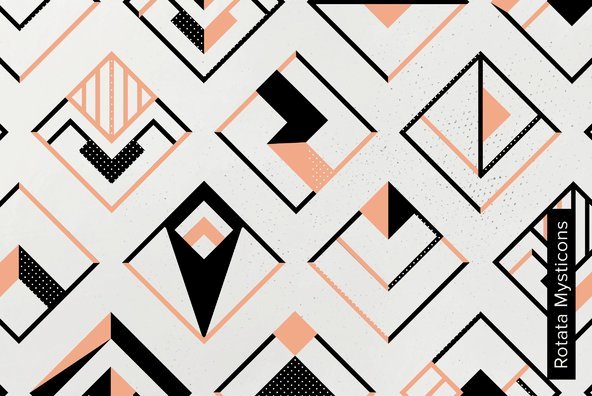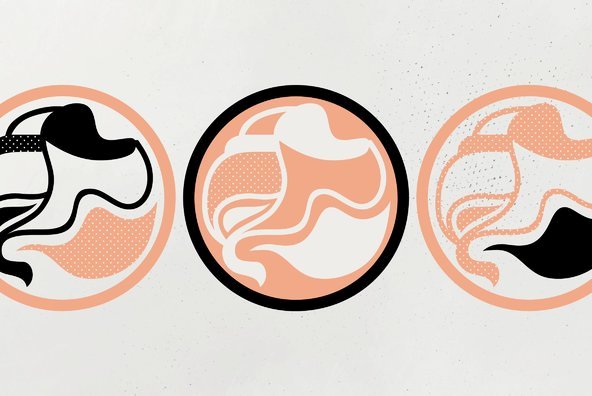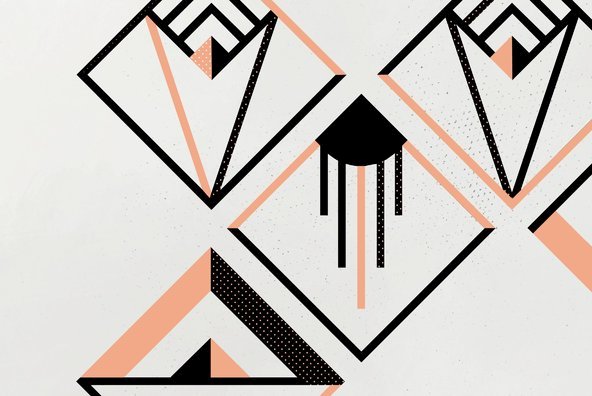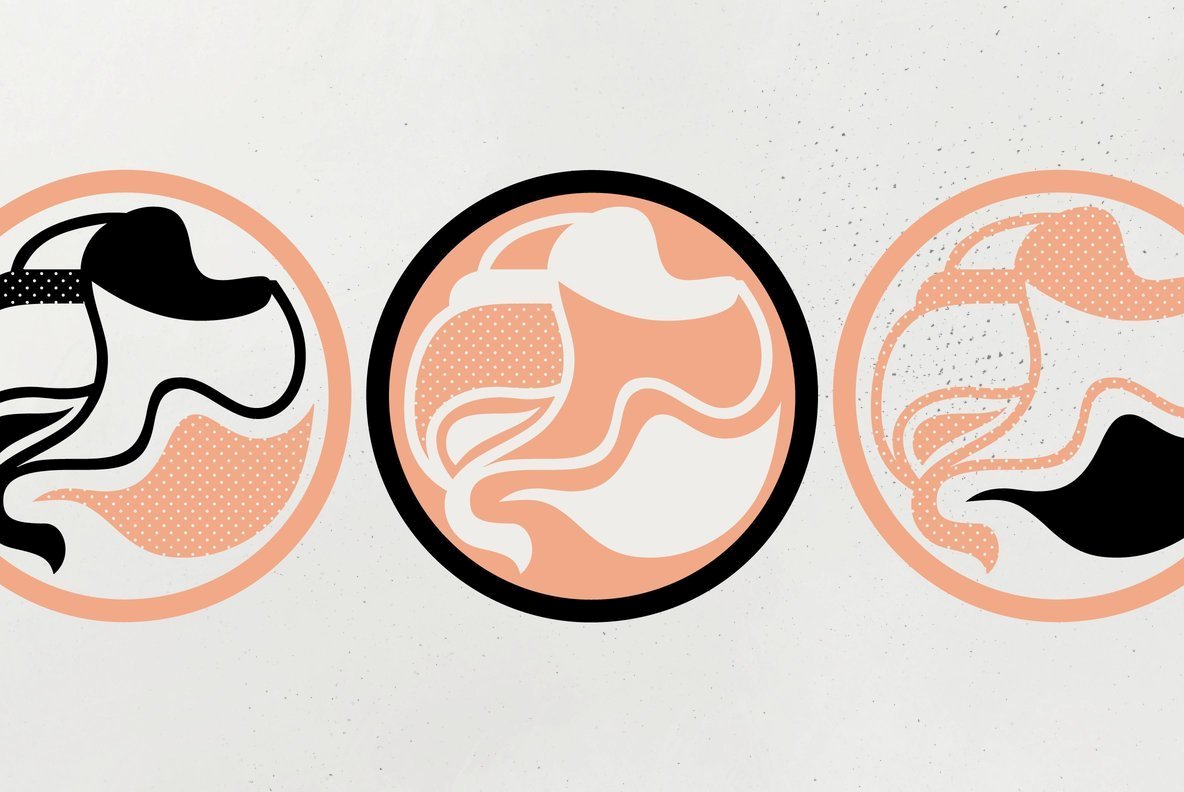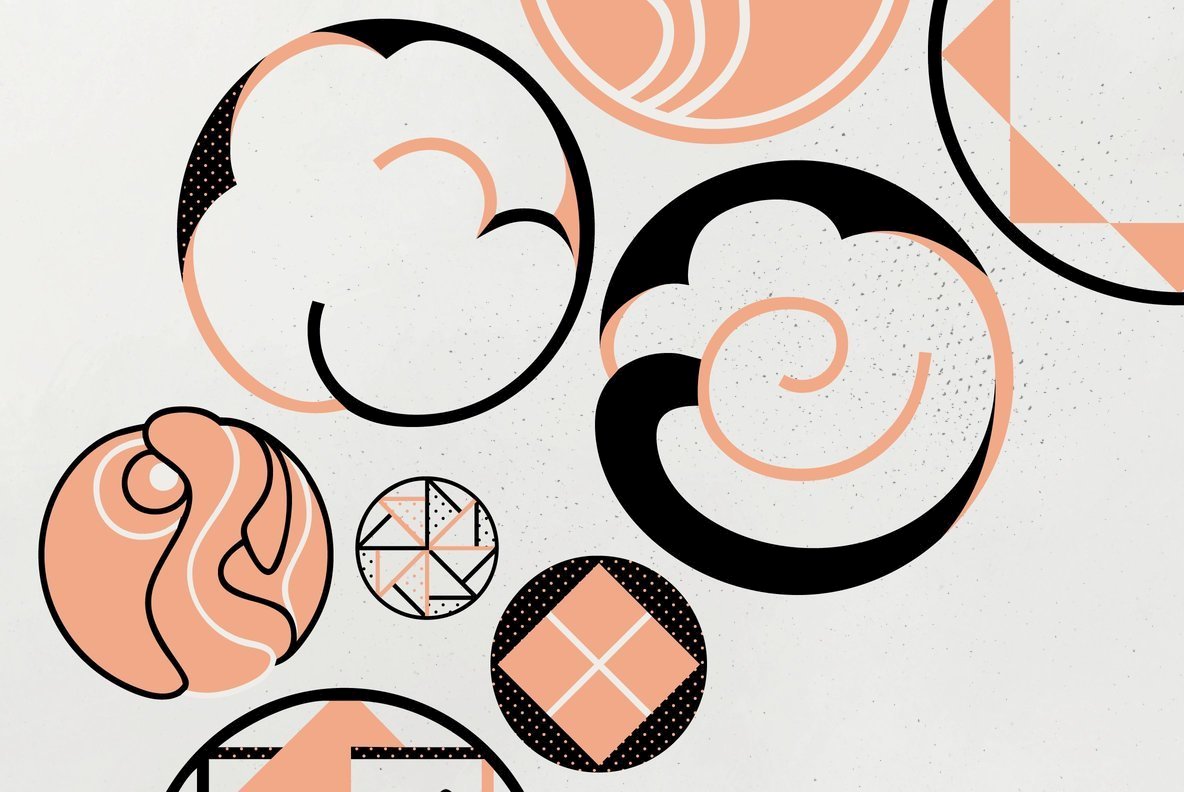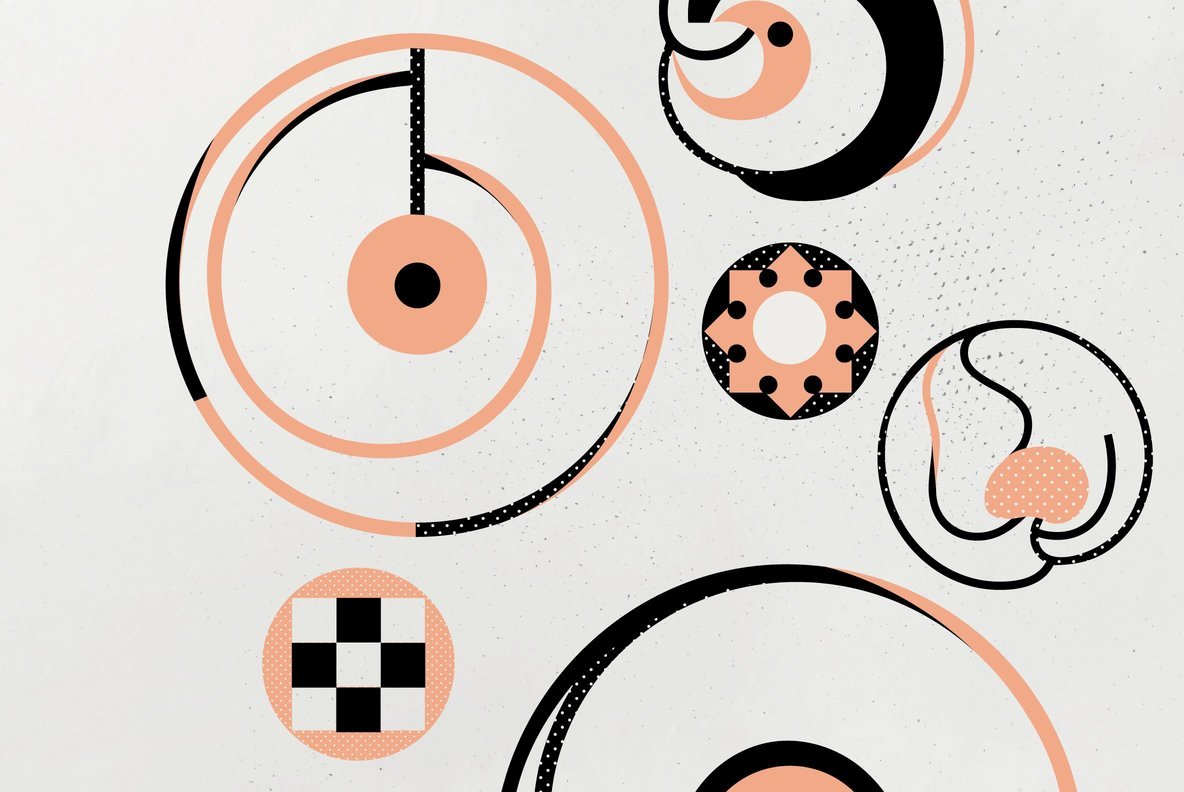
Rotata Mysticons were designed by Hellmut G. Bomm in 2004, released by URW of Germany. An interesting collection of icons and symbols in various styles, with a slight hint of Art Deco.